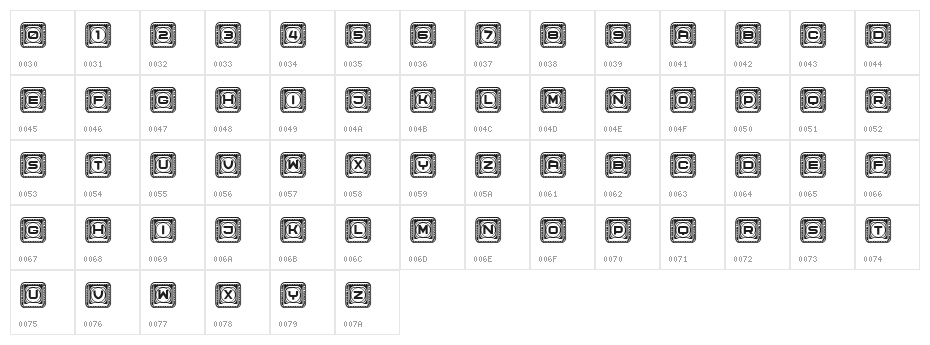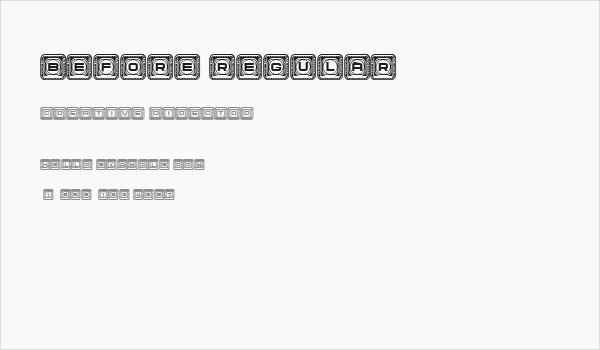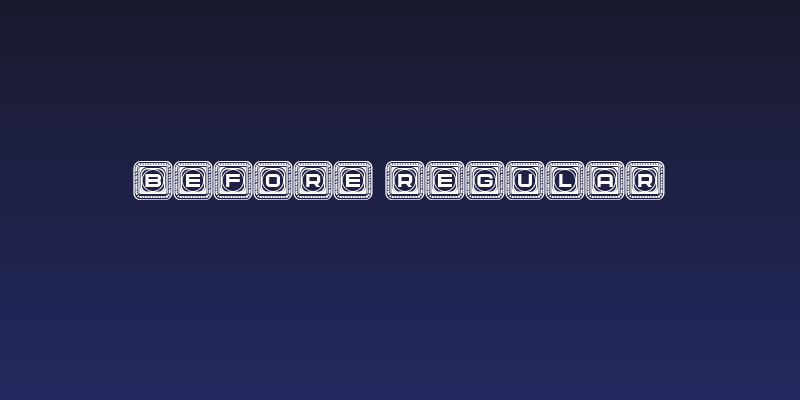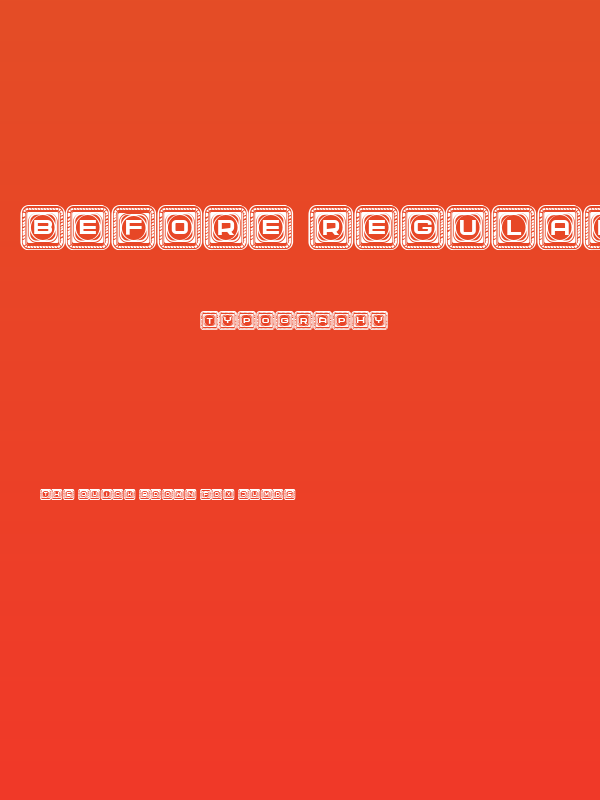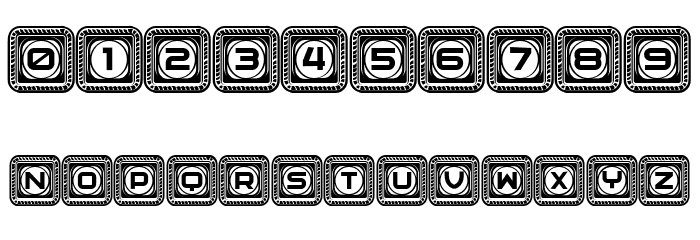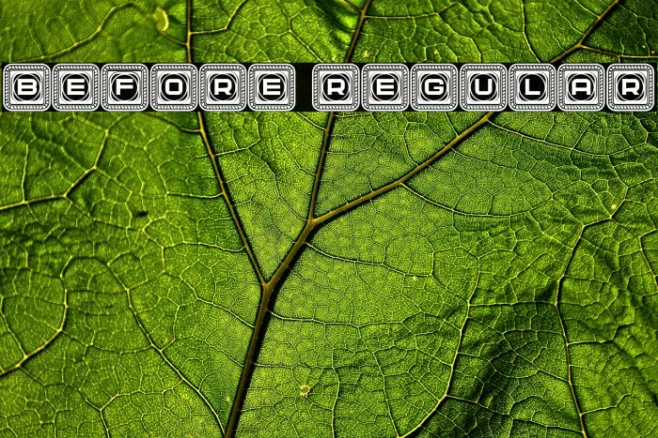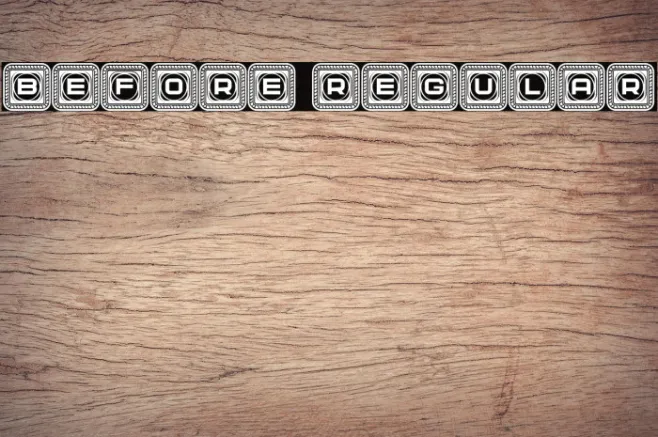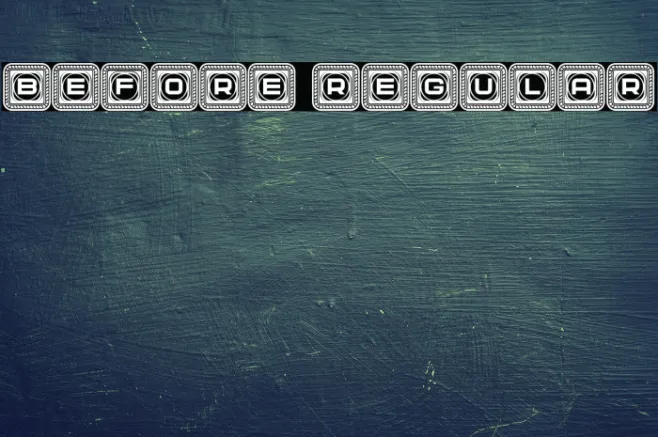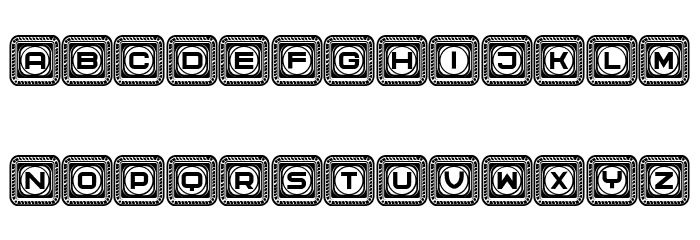
Before Regular Font
Before Regular Description
This font features a unique and decorative style, characterized by its bold, block-like letters enclosed within square frames. Each character is presented with a distinct, patterned border that adds a sense of depth and intricacy. The letters are uppercase and lowercase, with numbers and special characters, all maintaining a consistent design. The font's geometric and structured appearance makes it stand out, offering a playful yet sophisticated aesthetic. The use of contrasting patterns within the borders enhances the visual appeal, making it suitable for eye-catching designs. Its distinct style is reminiscent of vintage typewriter keys, providing a nostalgic yet modern twist.
| Overall Style | Vintage, Decorative |
| Proposed Projects | Ideal for retro-themed posters, vintage branding, creative packaging, and decorative headlines. |